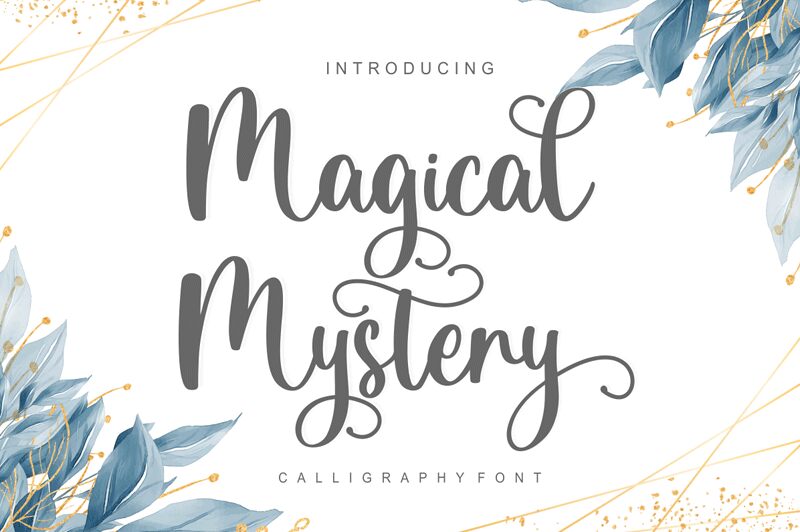
Magical Mystery font is a stunning calligraphy font designed by Muhamad Fikry Nuralif of Fikryal.Co Studio.
Features: Lowercase Beginning & Ending Swashes, Extra Swashes & Ligatures.